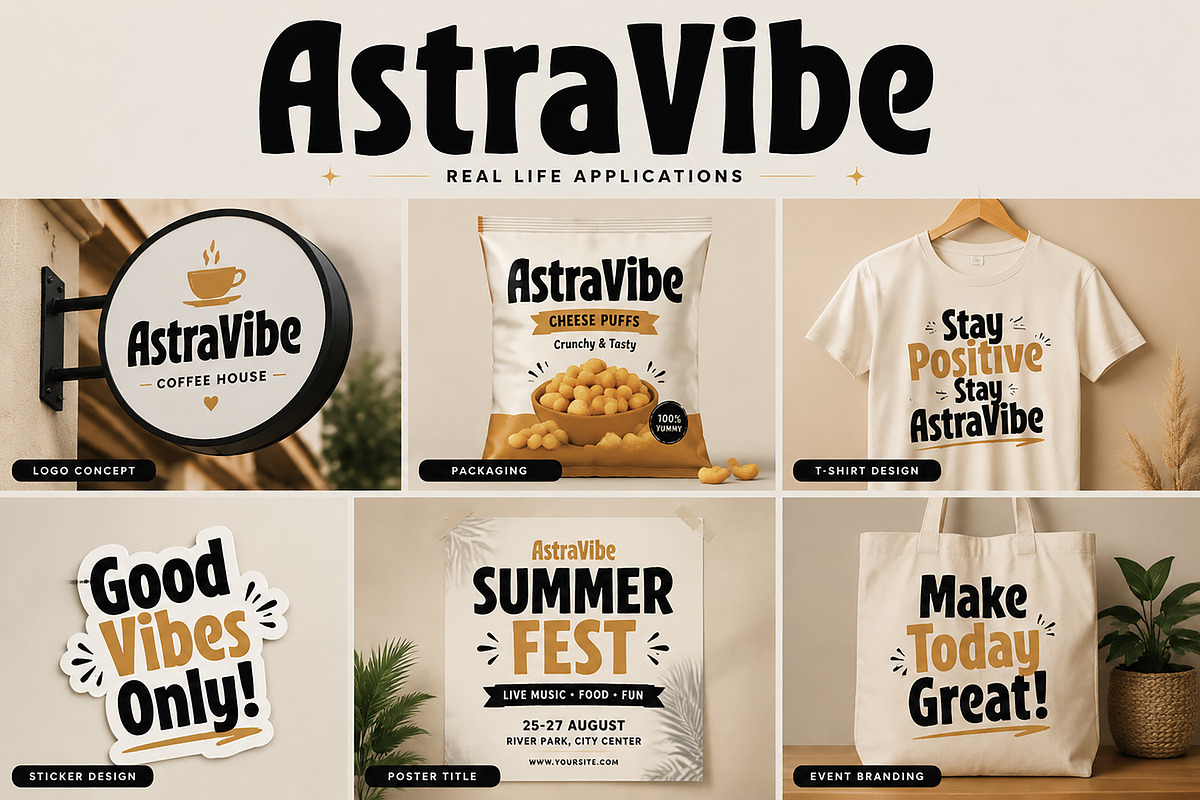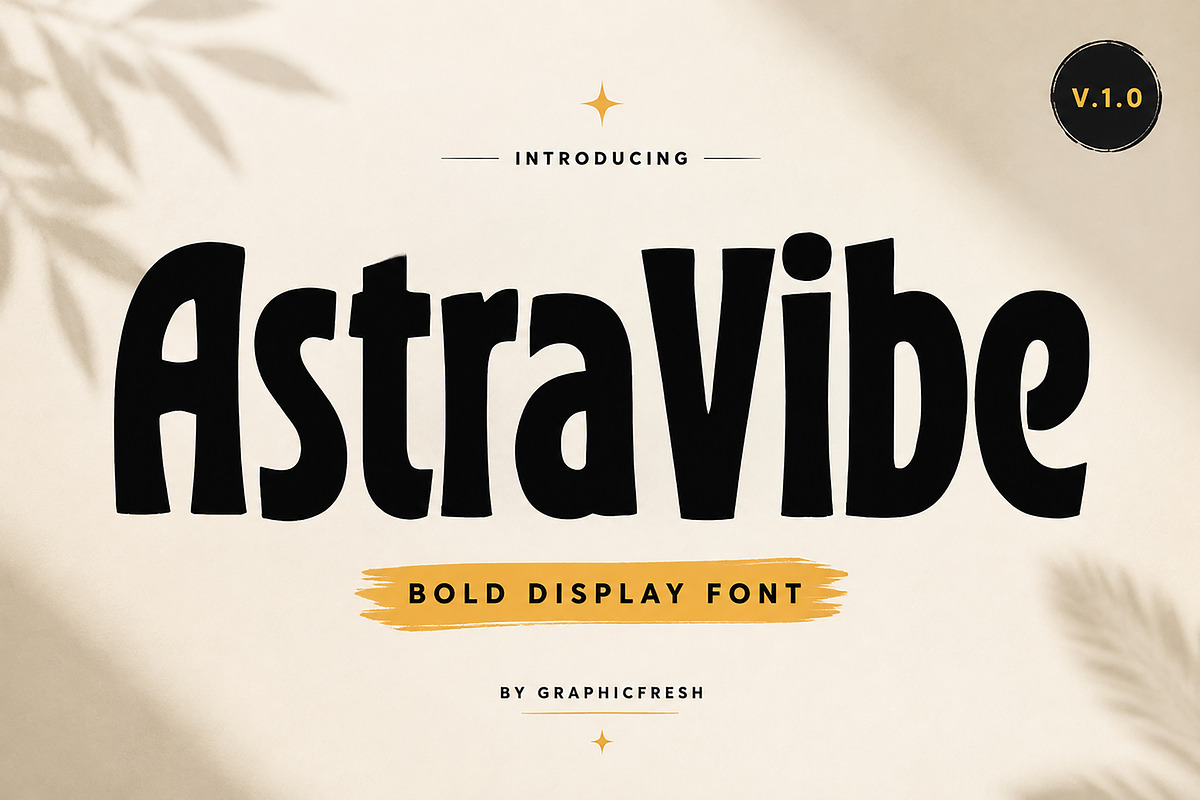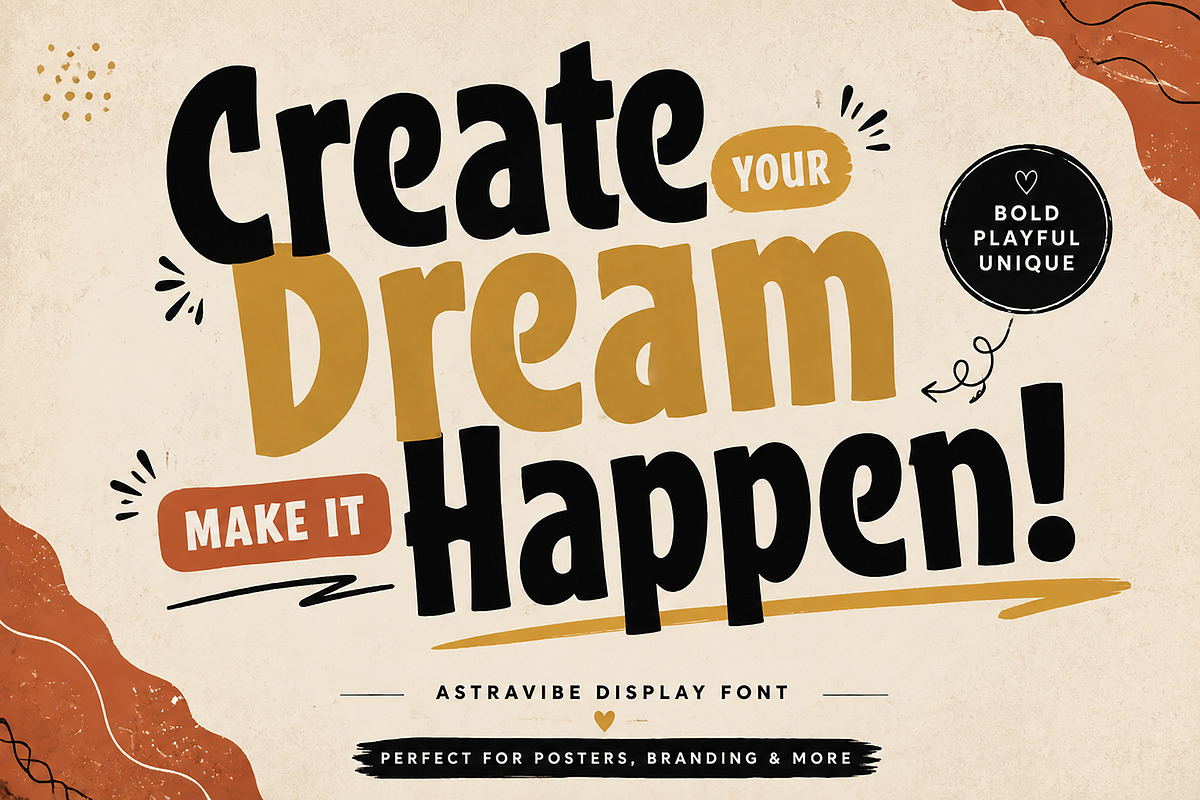
AstraVibe
AstraVibe is a bold and playful display font designed to bring strong personality and modern energy to your creative projects. With its unique rounded shapes, expressive curves, and eye-catching appearance, AstraVibe is perfect for designs that need a confident and memorable visual style.
This versatile typeface works beautifully for branding, logos, posters, packaging, social media graphics, headlines, merchandise, invitations, and creative advertising designs.
AstraVibe combines a fun contemporary aesthetic with excellent readability, making it a great choice for designers, content creators, and brands looking for a distinctive display font that stands out.
Create bold statements and unforgettable designs with AstraVibe.
✔ Bold Display Typeface
✔ Unique Playful Letter Style
✔ Modern & Creative Design
✔ Strong Visual Impact
✔ Perfect for Branding & Headlines
✔ Great for Posters & Social Media Designs
✔ Suitable for Print & Digital Projects
• Logo Design
• Brand Identity
• Poster Design
• Packaging Design
• T-Shirt Graphics
• Social Media Posts
• YouTube Thumbnails
• Advertising Materials
• Event Branding
• Creative Headlines
• Merchandise Design